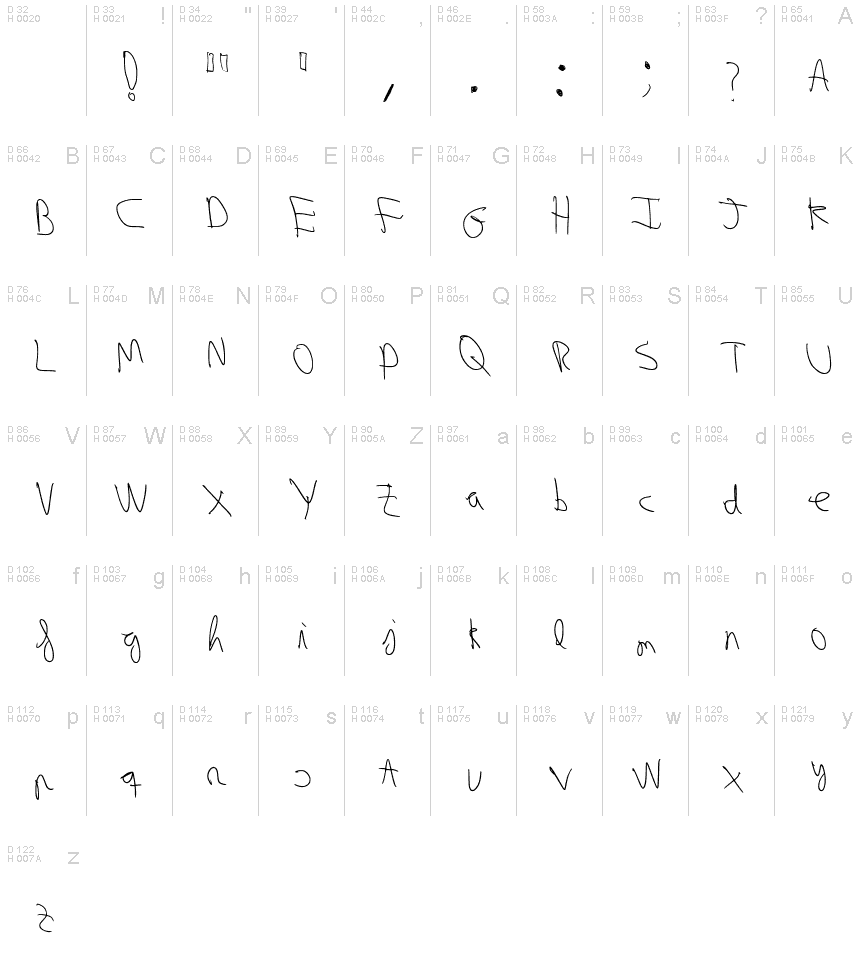
Fuente De Prueba Regular
Fuente de Prueba, a whimsical creation by Alma Fdez, is an extraordinary font that embodies the essence of handwritten charm. With its extra-light weight, this font exudes a delicate grace that adds a touch of playfulness to any project.
Its distinctively imperfect style lends itself perfectly to creative endeavors such as children's book illustrations, greeting cards, and quirky branding designs. Whether you seek to evoke nostalgia or inject a dash of whimsy into your work, Fuente de Prueba is the ideal choice for those seeking unconventional beauty in their typography.